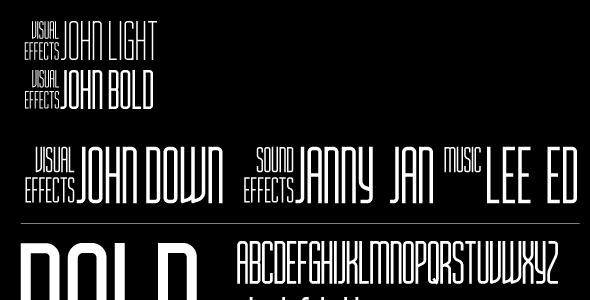
Movie Title AH Condensed bold and light font family
MOVIE TITLE IS AN MINIMAL DISPLAY TYPEFACE INSPIRED BY THE STEEL SANS SERIF FONT FAMILY. THIS TYPEFACE IS PERFECT FOR POSTERS AND HEADLINES.